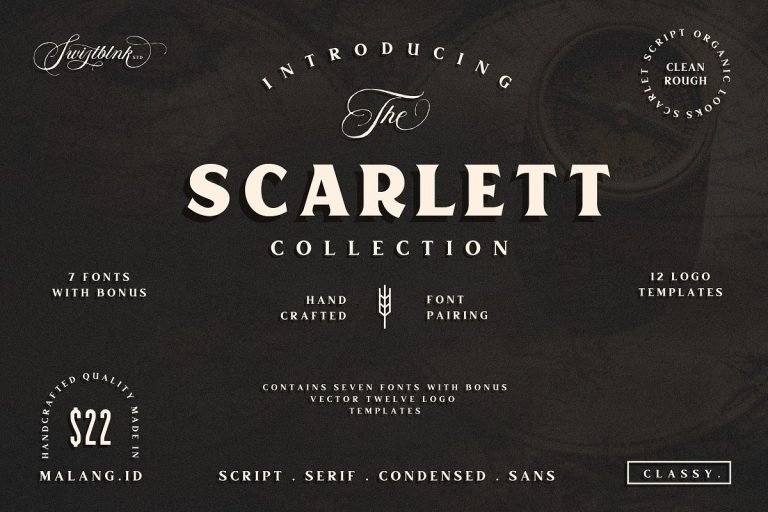
Scarlett Typeface
Thank you for looking Scarlett Display Font. This font gives a feel of vintage, classic, old, handmade looked like. It will become a playful staple in your font library! Scarlett designed and shared by Swistblnk Std. This Font Collection contains 7 Fonts named Scarlett Family with bonus vector Logo Templates. this collection perfectly paired for logo, label , packaging or headlines with modern classy looks.